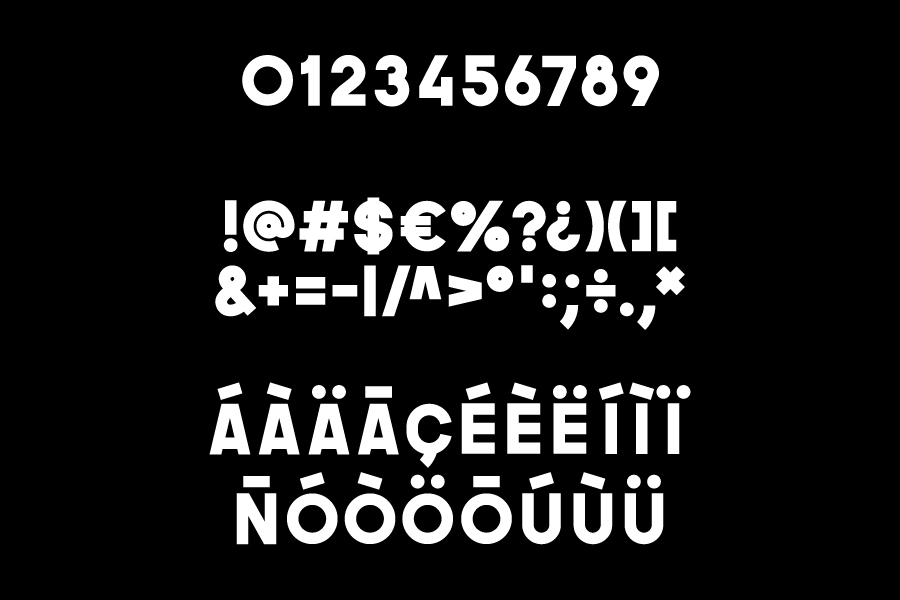
The Next Sans Font
Start of new projects with a free font, which is absolutely fine, I introduce to you The Next Sans Font! a new creative typography, and completely free. The Next Sans designed and shared by Pindarots. This geometrically neat sans typeface is coming to you with uppercase, lowercase, numbers, symbols, and accented glyphs.